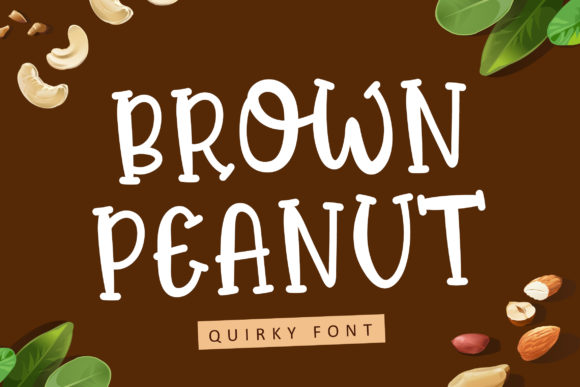
Immerse yourself in the whimsical world of Brown Peanut Font, where imagination takes flight and creativity flourishes. This enchanting display font, crafted by the ingenious Illushvara, is a symphony of playful colors and charming shapes, tailored to ignite joy and captivate hearts.
Brown Peanut Font is not just a collection of letters; it's a portal to a realm where laughter echoes and imagination roams free. Its cheerful hues and playful contours evoke a sense of childlike wonder, making it the ideal choice for any project that seeks to connect with the hearts of children.
Whether you're designing invitations for a birthday bash, creating posters for school events, or crafting digital content that sparks joy and laughter, Brown Peanut Font is your perfect companion. Its unmistakable style will transform ordinary words into extraordinary expressions, making your creations stand out from the crowd.
So, if you're ready to inject a burst of color and creativity into your next project, look no further than Brown Peanut Font. Let its playful spirit guide you as you create designs that bring smiles to faces and ignite imaginations.